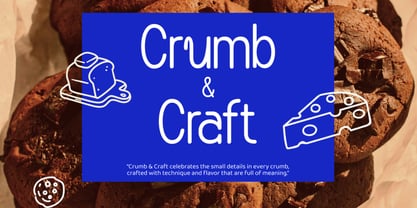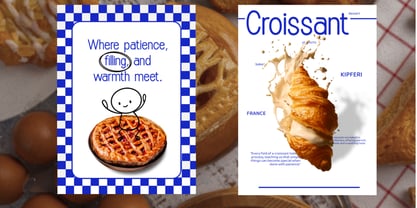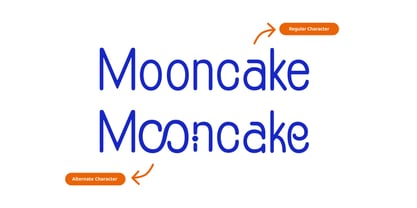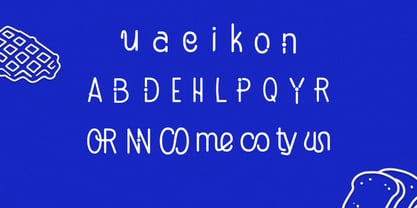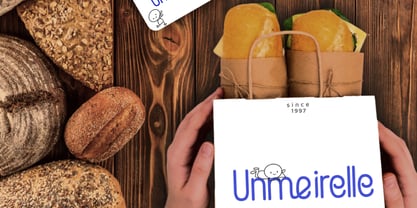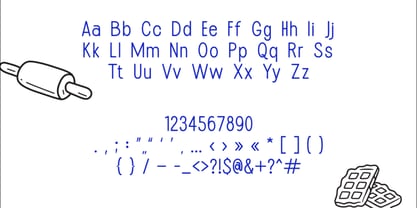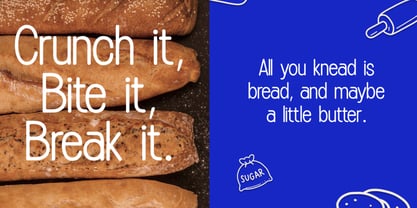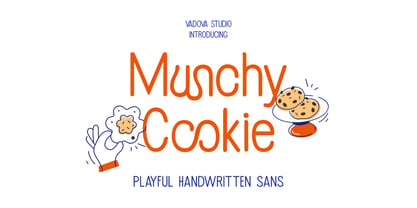
Munchy Cookie
Munchy Cookie is a playful handwritten sans font with rounded strokes and a cheerful, friendly personality. The letterforms feature smooth curves and soft proportions that create a casual and approachable handwritten feel while remaining clean and readable. It includes uppercase, lowercase, numbers, punctuation, symbols, and alternate characters for flexible and expressive typography. Munchy Cookie is perfect for children’s projects, food and snack branding, packaging designs, posters, social media content, playful branding, educational materials, and creative layouts that require a friendly and approachable tone.